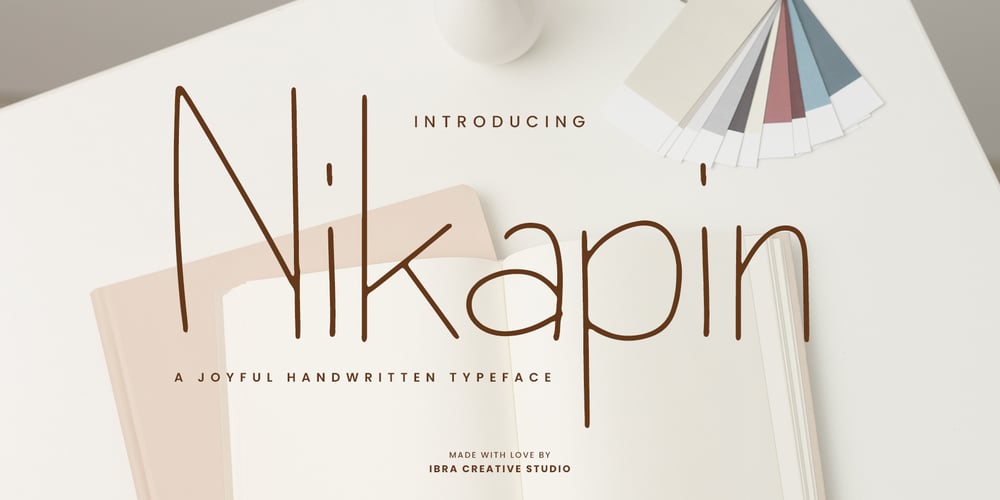
Nikapin Font Family was designed by Roisatul Azizah and published by IbraCreative. Nikapin contains 1 styles and family package options. Nikapin – A Joyful Handwritten TypefaceNikapin, a delightful handwritten typeface, effortlessly encapsulates the essence of joy and spontaneity. With its whimsical strokes and playful curves, Nikapin exudes a lively and carefree spirit, making it the perfect choice for projects that demand a touch of cheerfulness. The characters dance across the page with a sense of spontaneity, creating a dynamic and organic feel. Each letter, meticulously crafted, reflects a unique hand-drawn charm that adds a personal and intimate touch to any design. Nikapin’s versatility shines through in its ability to bring a sense of warmth and happiness to a myriad of creative endeavors, from invitations and greeting cards to branding materials, infusing each project with an infectious sense of joy.Nikapin is perfect for branding projects, logo, wedding designs, social media posts, advertisements, product packaging, product designs, label, photography, watermark, invitation, stationery, game, fashion and any projects.Fonts include multilingual support for; Afrikaans, Albanian, Czech, Danish, Dutch, English, Estonian, Finnish, French, German, Hungarian, Italian, Latvian, Lithuanian, Norwegian, Polish, Portuguese, Slovak, Slovenian, Spanish, Swedish.